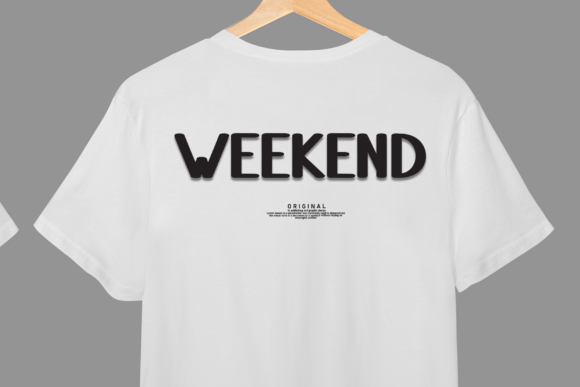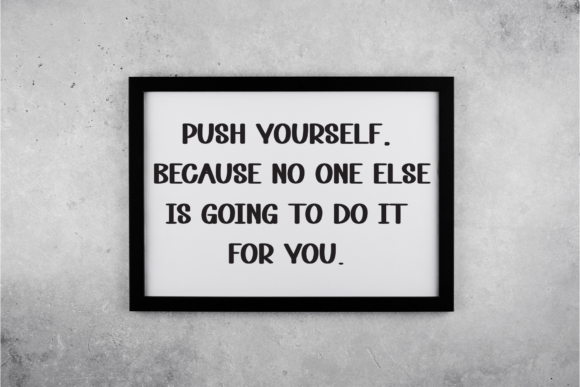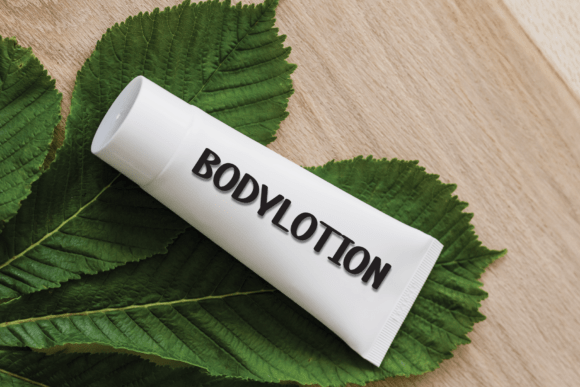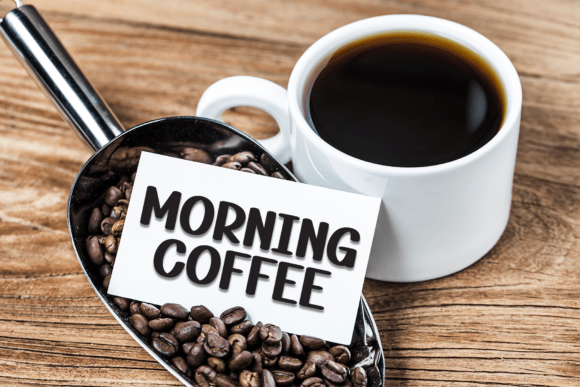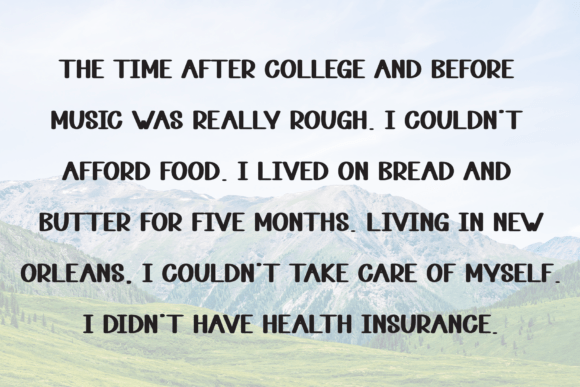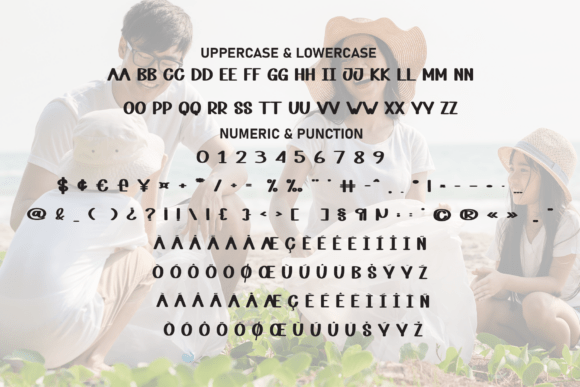
Introduction to Dream Holiday Font
One such font that has captured the hearts of many designers is the charming Dream Holiday Font. This delightful handwritten display font exudes a sweet and lively vibe, making it a perfect choice for adding a touch of whimsy to your designs. Whether you’re working on a wedding invitation, a birthday card, or any other elegant stationery, this font is sure to breathe life into your unique designs.
Key Features of Dream Holiday Font
- High-quality design for creative projects, ideal for travel and vacation-themed artwork.
- Font size: 2048 characters (including accents and special characters), allowing for a wide range of creative expressions.
- Unique characteristics: swashes, flourishes, and ornaments, adding a touch of elegance and sophistication to designs.
Honest Review: Dream Holiday Font
I recently had the chance to test out the Dream Holiday Font, and I’m excited to share my honest thoughts with you. As a designer, I’m always on the lookout for high-quality design resources that can elevate my creative projects.
- ✨ The Dream Holiday Font is incredibly versatile and can be used for a wide range of projects, from travel blogs to social media graphics.
- ⚠️ The font is not as customizable as some other fonts I’ve worked with.
- ⚠️ The font family is relatively small, with only a few weights and styles available.
Overall, I’m impressed with the Dream Holiday Font, but I do wish it had a bit more flexibility. If you’re looking for a high-quality font for a creative project, I’d definitely recommend checking it out. Just be aware of the limitations, and you’ll be golden!
The Dream Holiday Font is ideal for designing travel-related graphics, such as postcards, brochures, and social media posts. You can also use it to create eye-catching titles and headings for your design project.